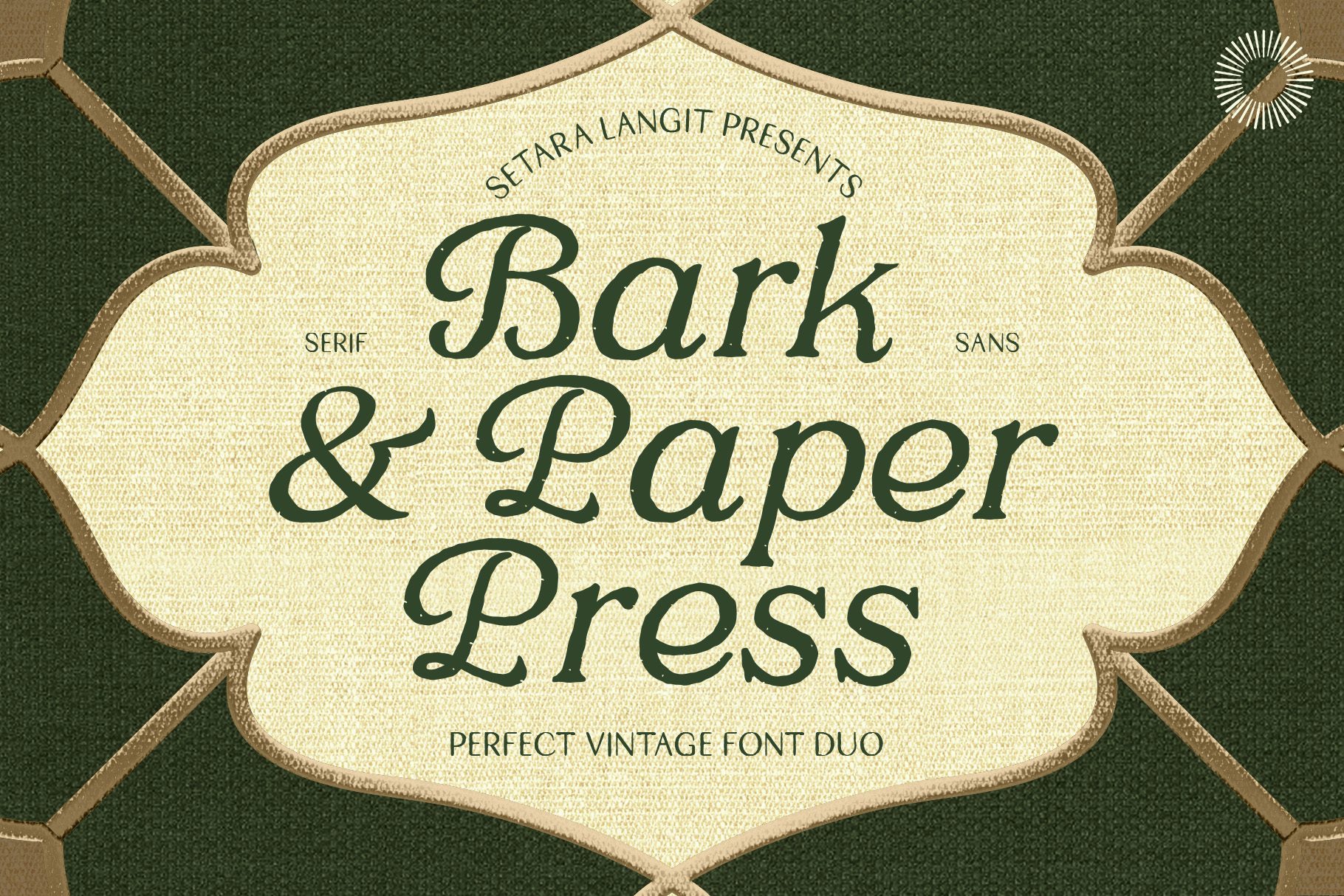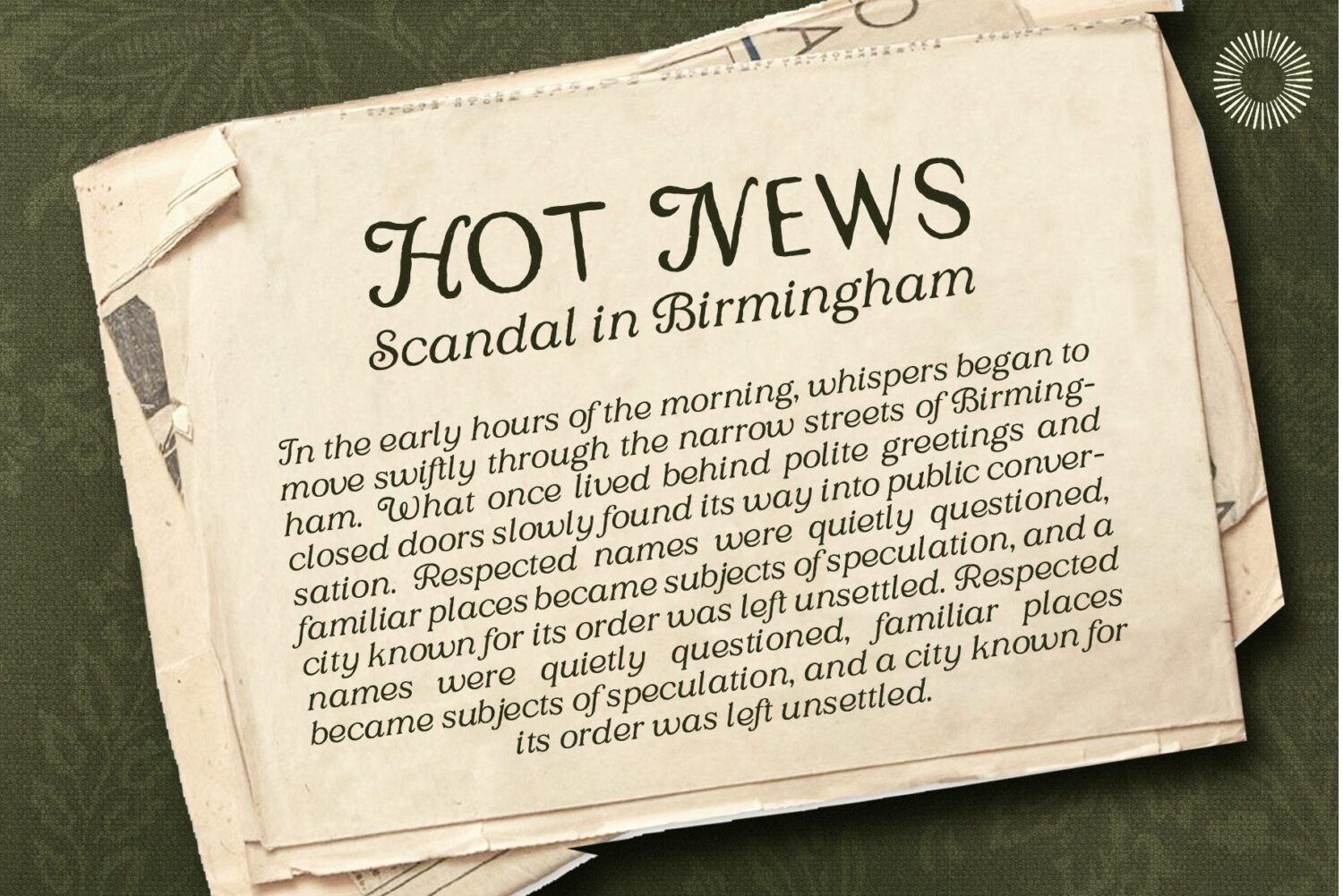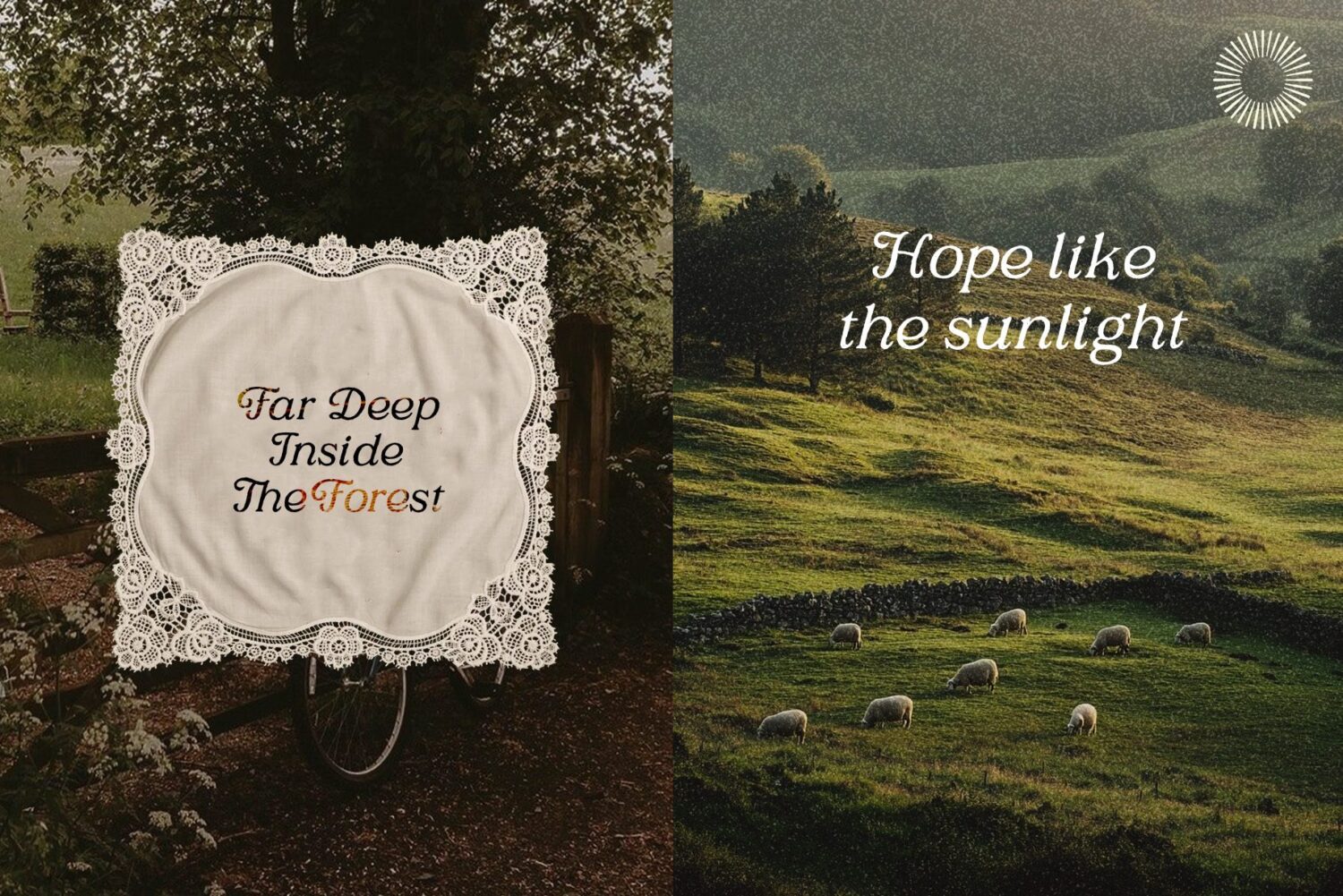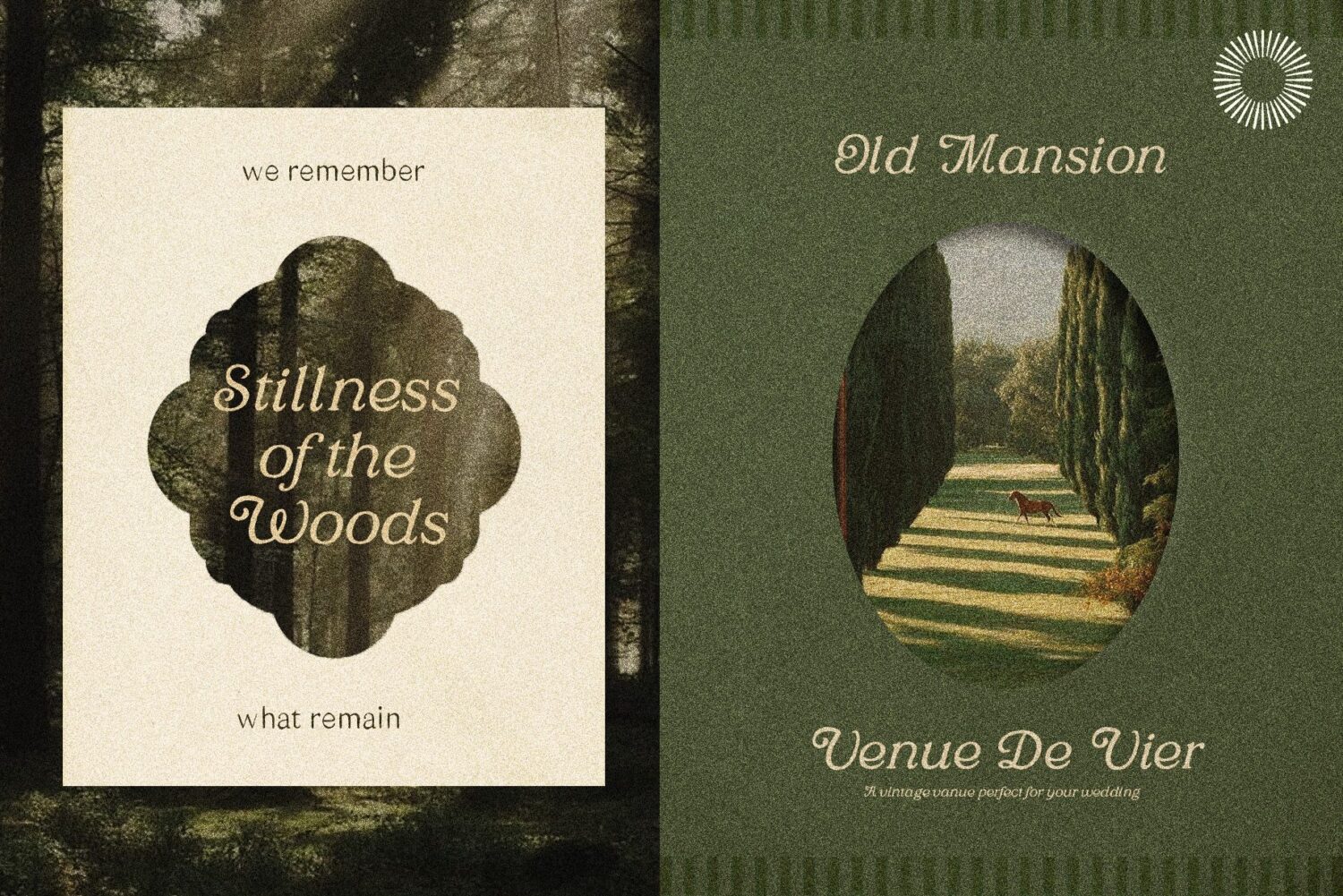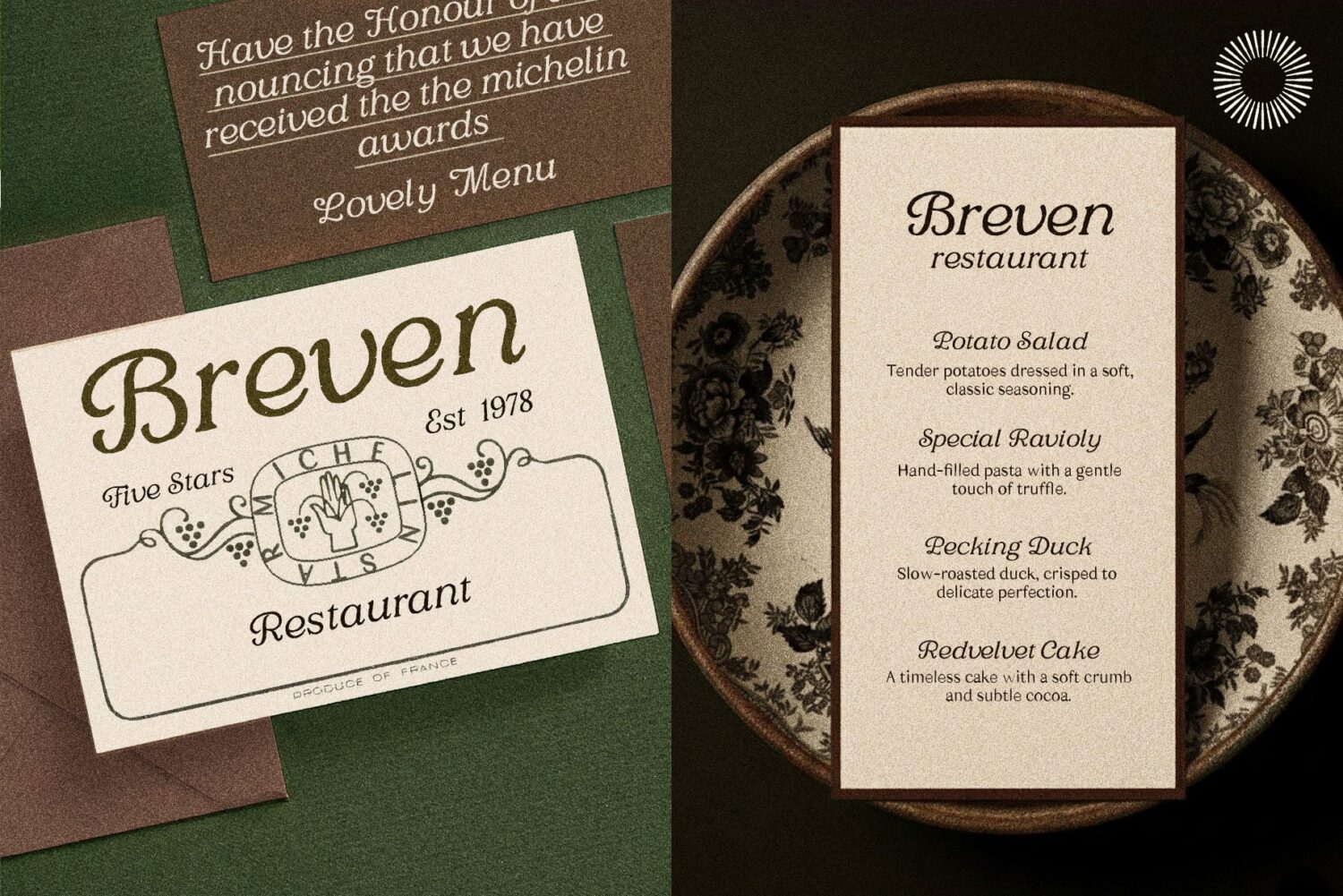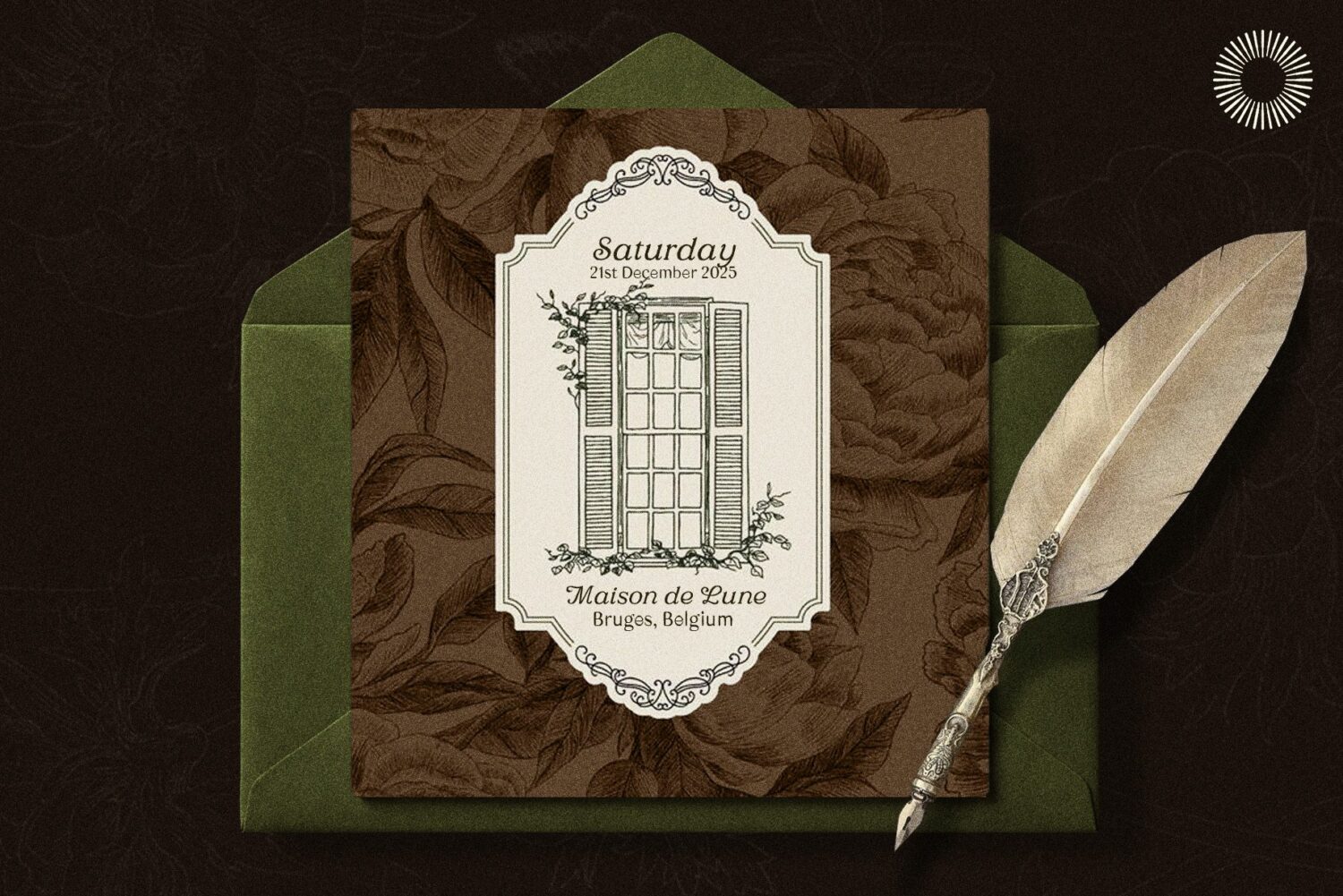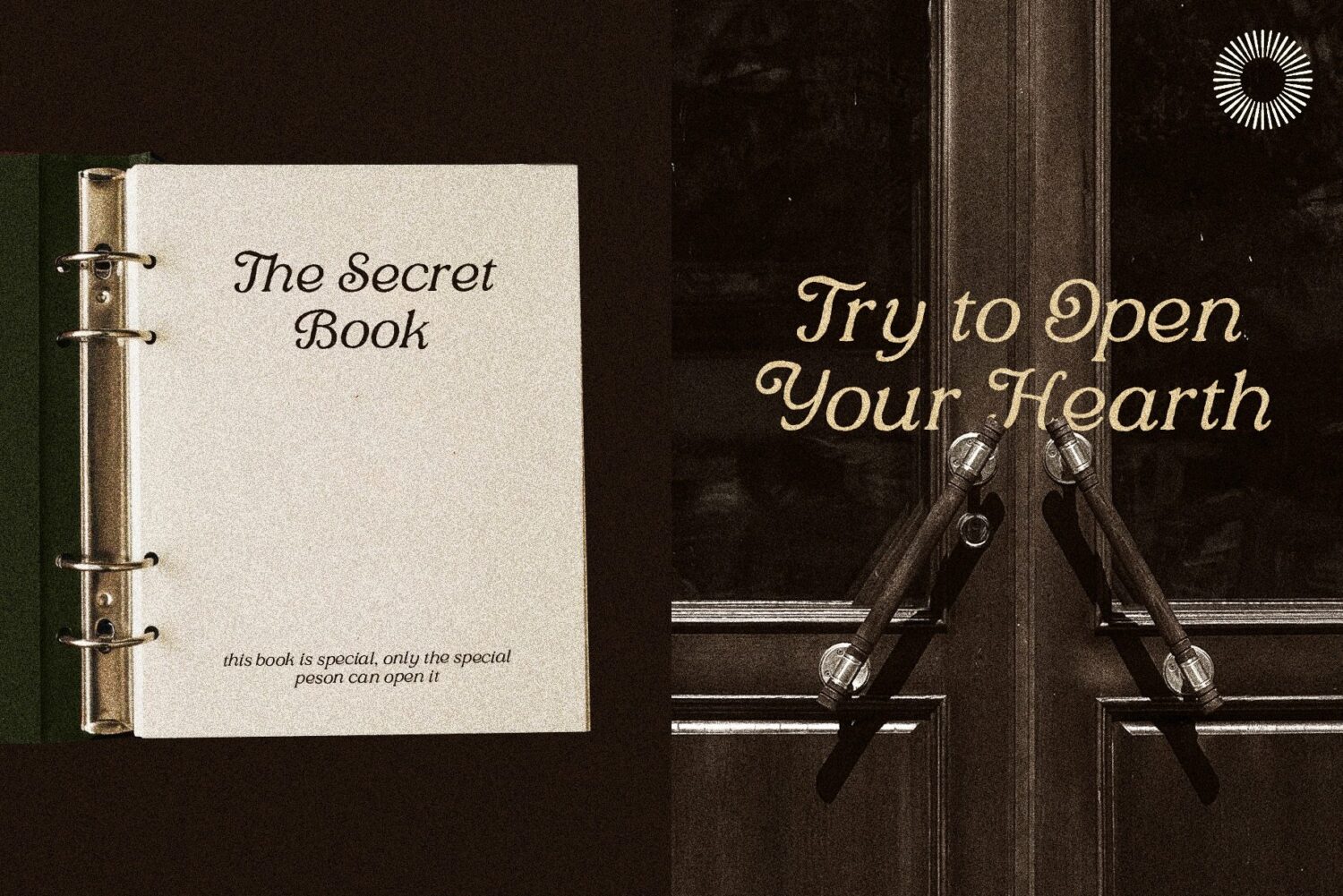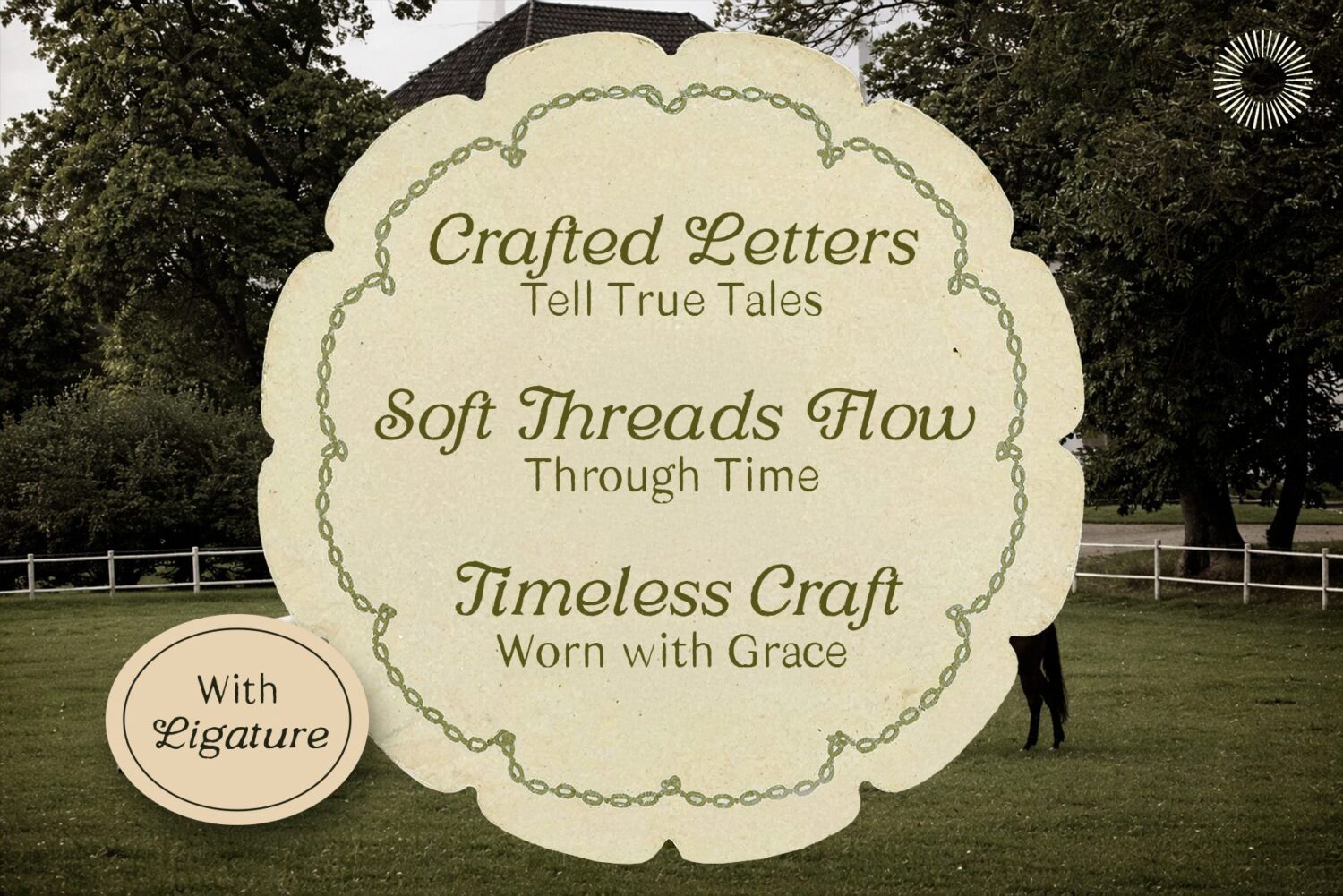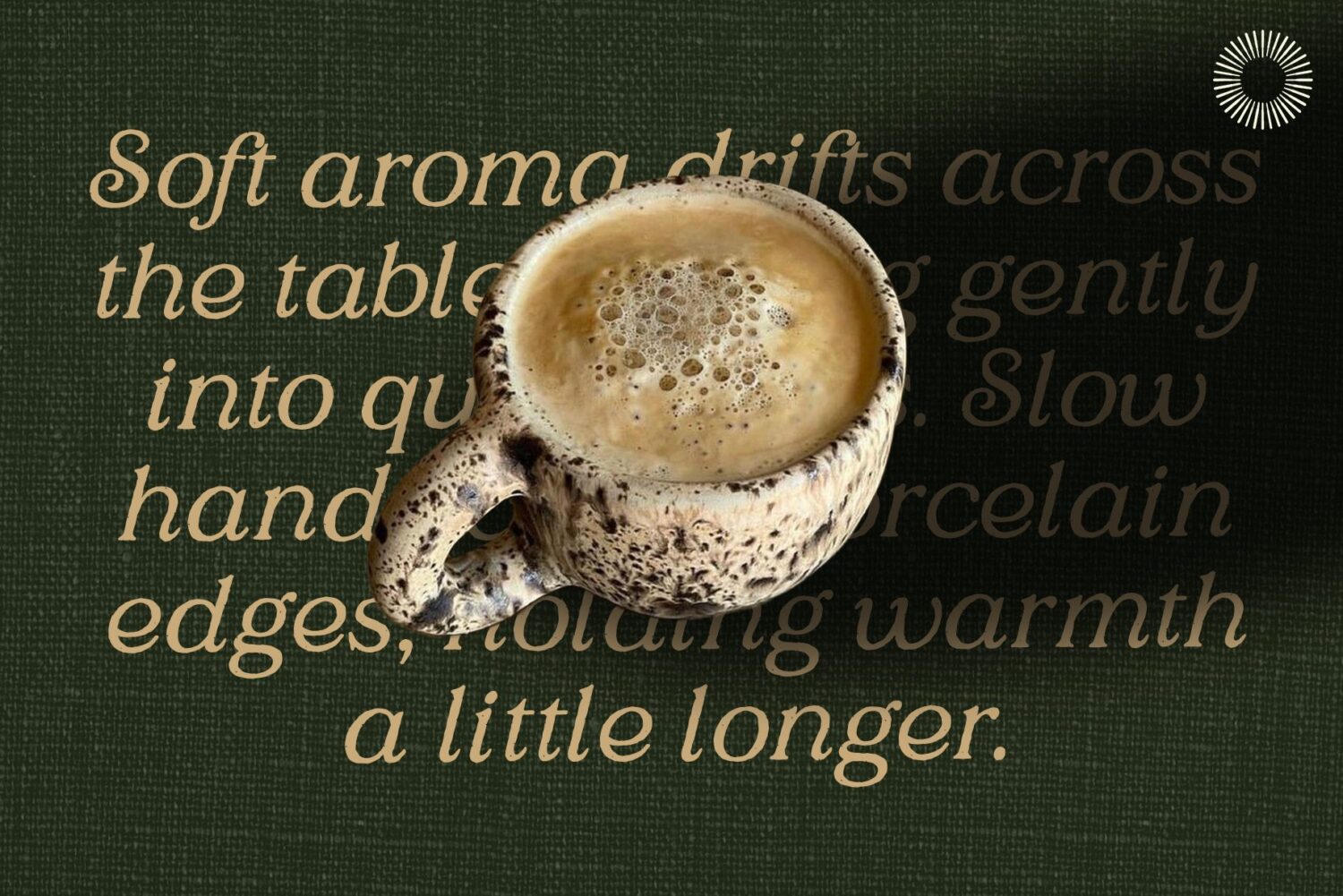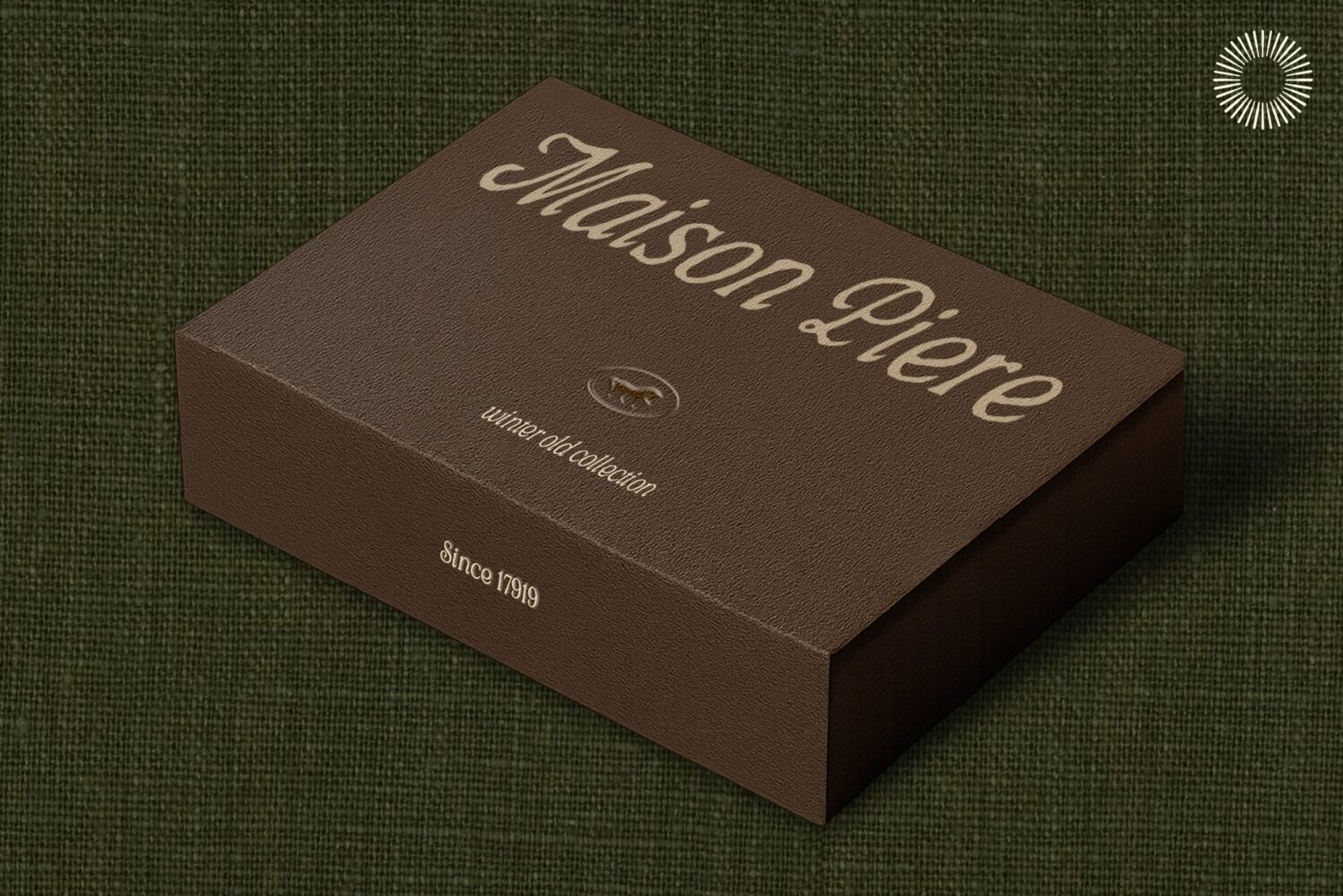
Bark & Paper Press – Vintage Font Duo
Bark & Paper Press is a carefully crafted vintage font duo inspired by old paper textures, traditional print shops, and handcrafted signage. The pairing combines a characterful serif with a clean, supportive sans, designed to work together effortlessly while still being strong enough to stand on their own. This font duo is built for designers who want an authentic, timeless look—not trendy decoration that expires in a year. The letterforms carry subtle irregularities and warm proportions, evoking ink on textured paper, classic labels, and heritage branding.
Serif Font (Bark & Paper Press)
Sans Font (Monclair Sans)
Uppercase & Lowercase
Numerals & Punctuation
Multilingual Support
✦ Best Used For Bark & Paper Press performs best in projects that value authenticity and story, such as:
Vintage & heritage branding
Coffee shops, bakeries, breweries, and artisanal products
Packaging design and labels
Editorial layouts and book covers
Posters, signage, and logo systems
Social media graphics with a handcrafted feel If your project needs to feel warm, honest, and rooted in craft, this font duo was designed for exactly that purpose.
• Multilingual support
• Uppercase & lowercase
• Numerals & punctuation